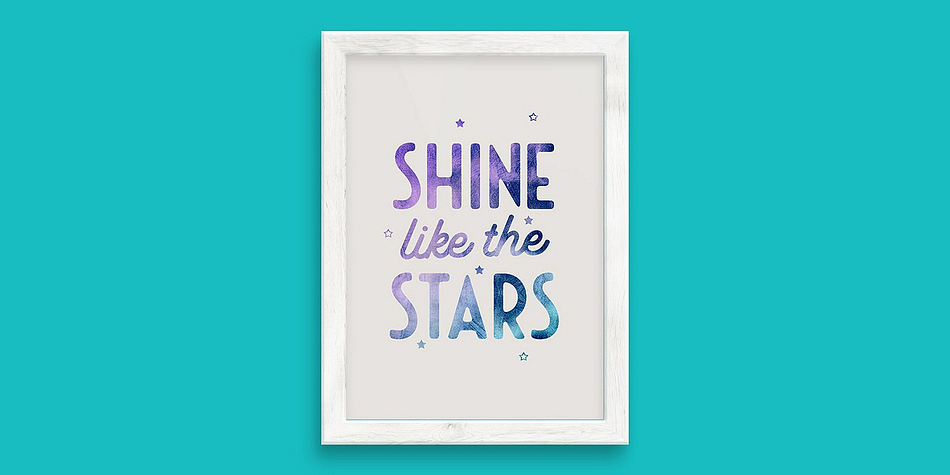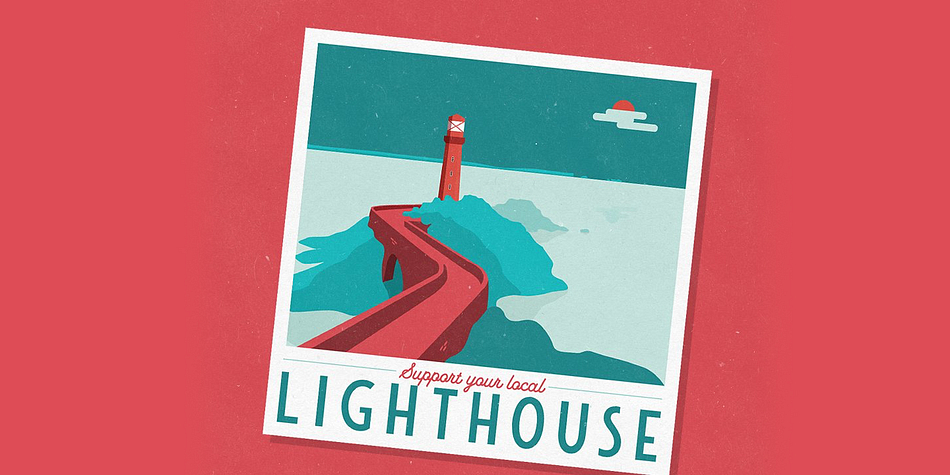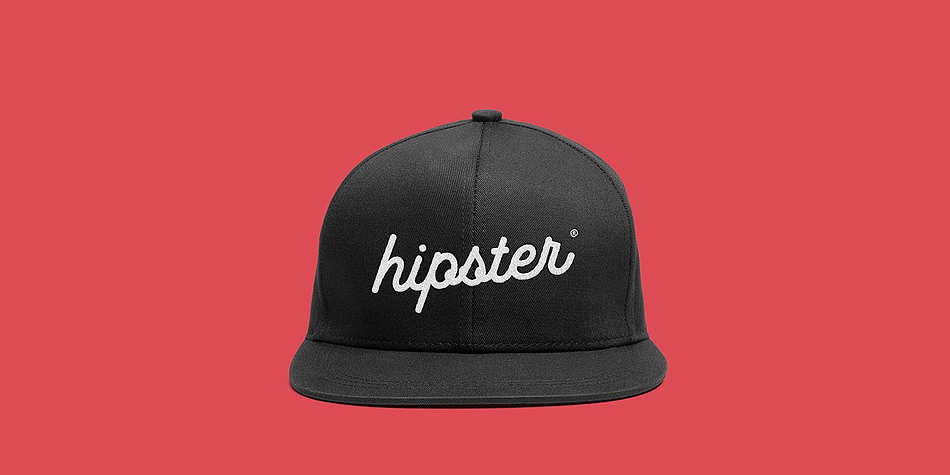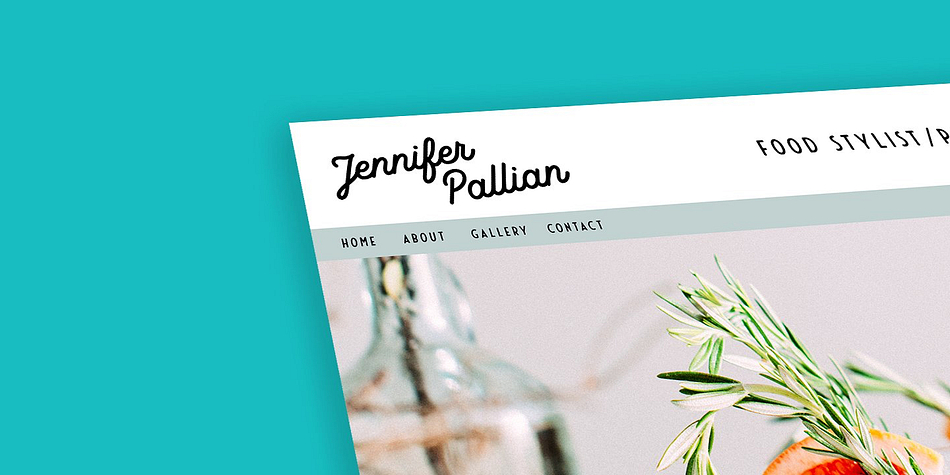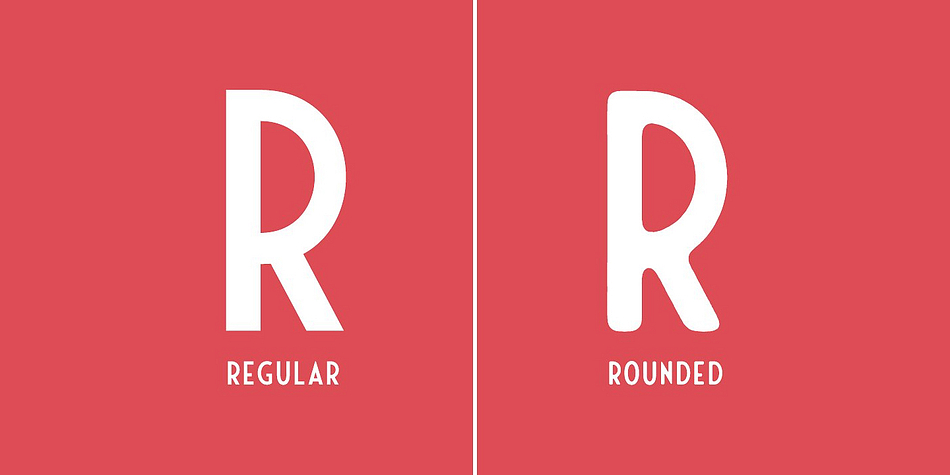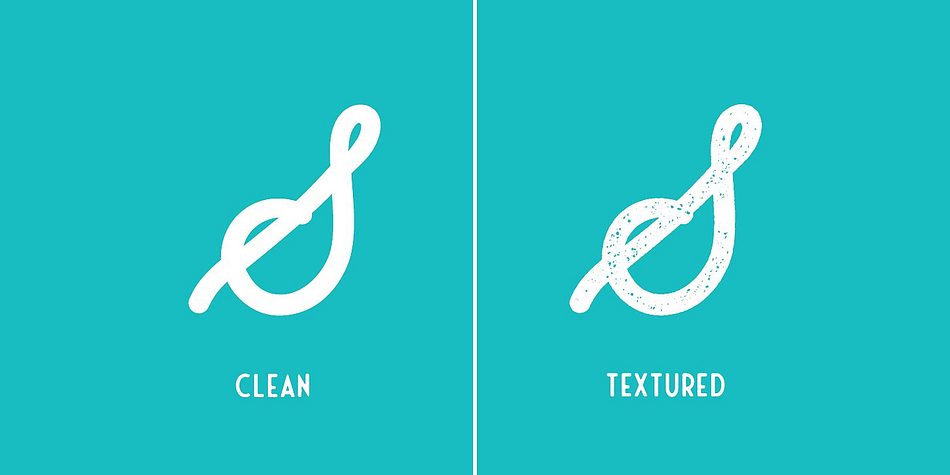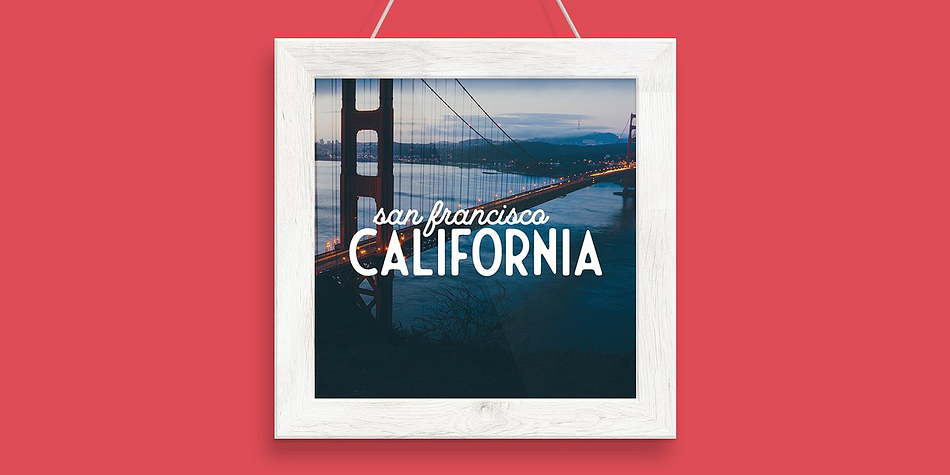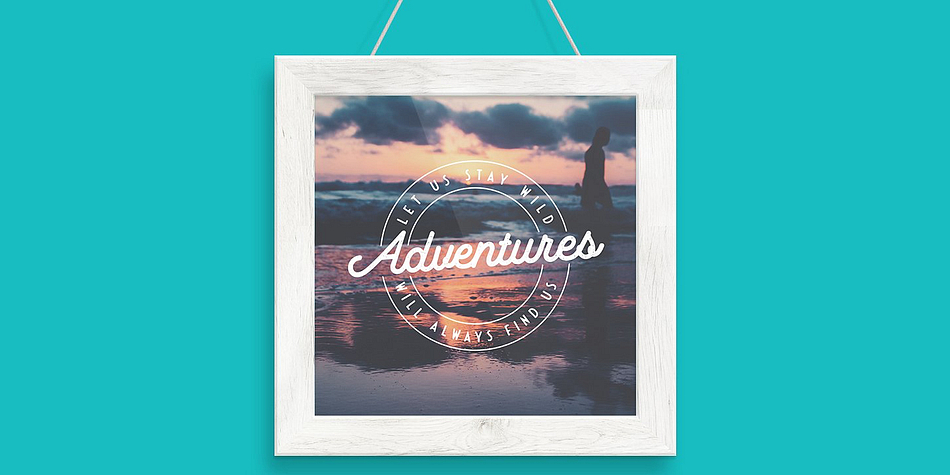
Designed by Ian Barnard, Montebello is a multiple classification font family. This typeface has four styles and was published by Ian Barnard.
Imagine the warm sand laying between your toes, sipping on a chilled cocktail. As you look out to the horizon the sun sets, casting long shadows from the beautiful mountains that break up the crystal blue waters of the still and quiet ocean.
You feel that you’re in a perfect picture postcard moment, but then the boss shouts at you from the other side of the office and you return to reality and the monotony of life. I can’t promise you a paradise getaway like this but using Montebello font will brighten your day and your designs.